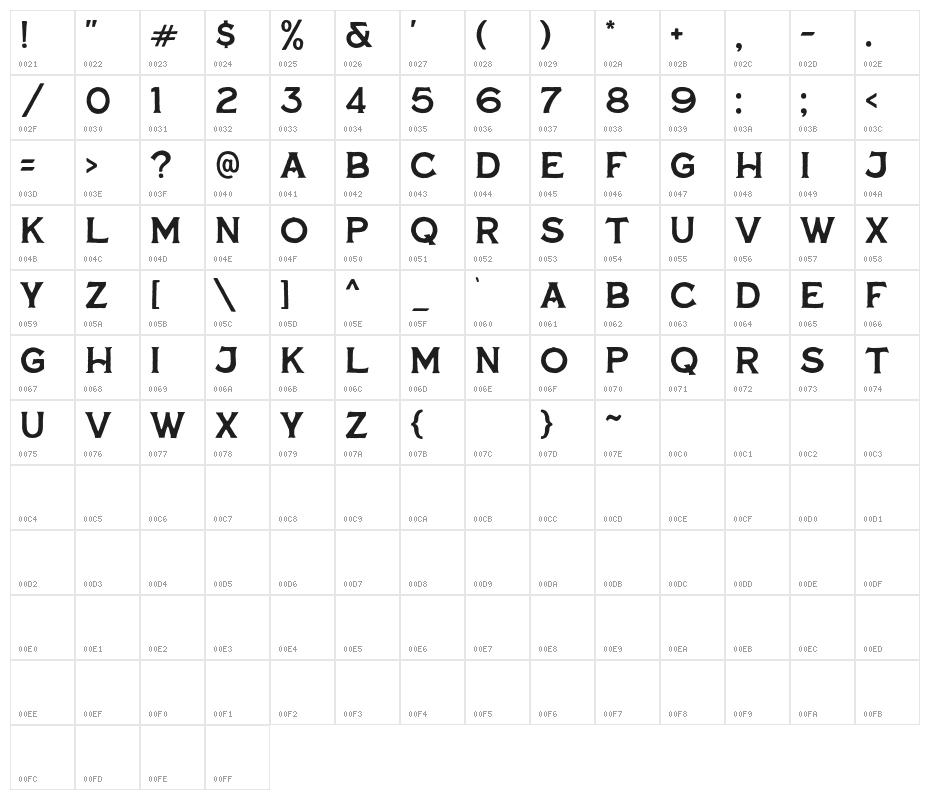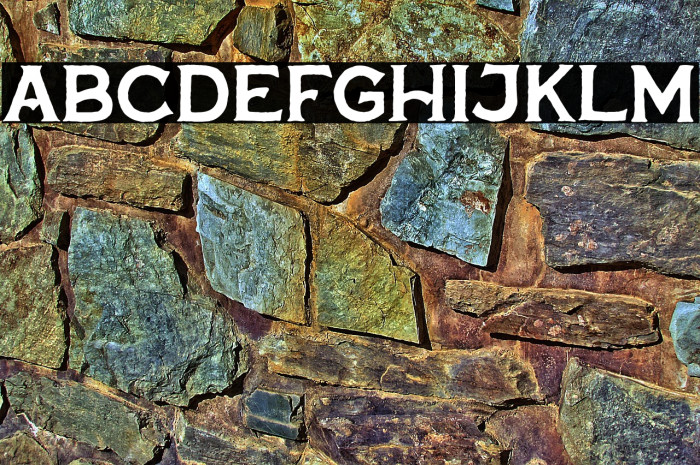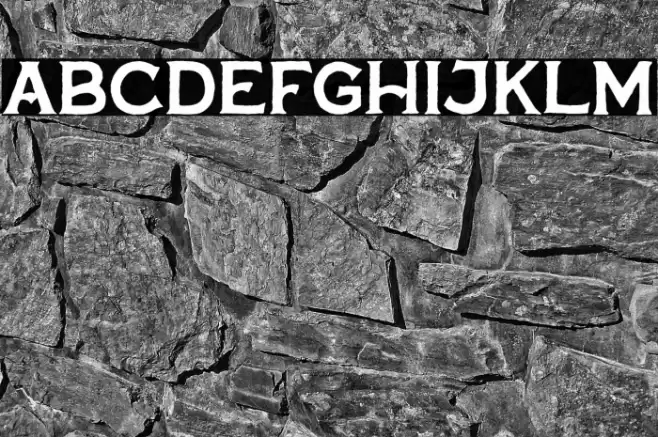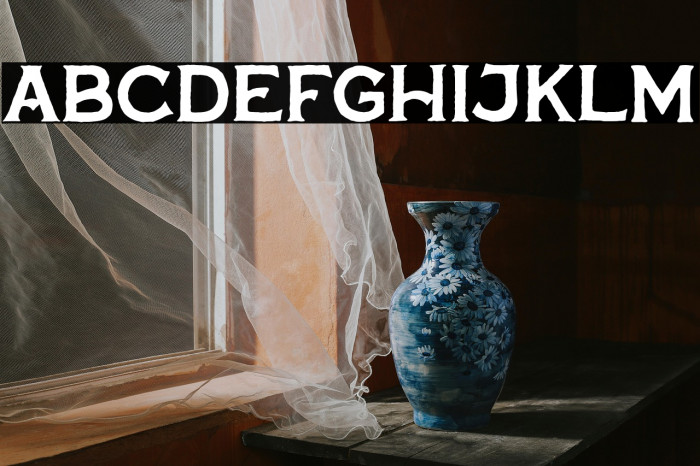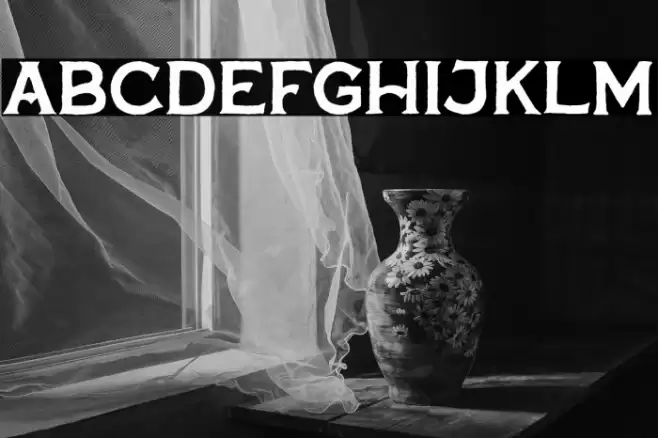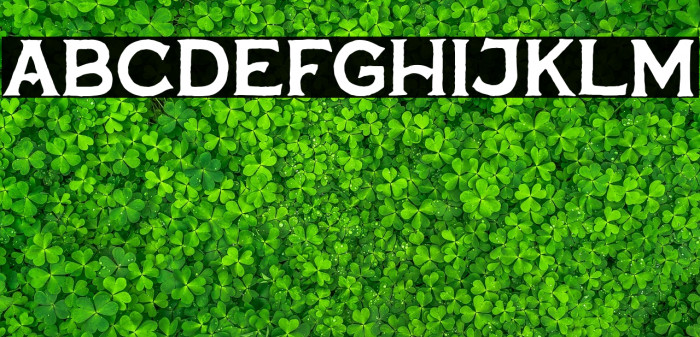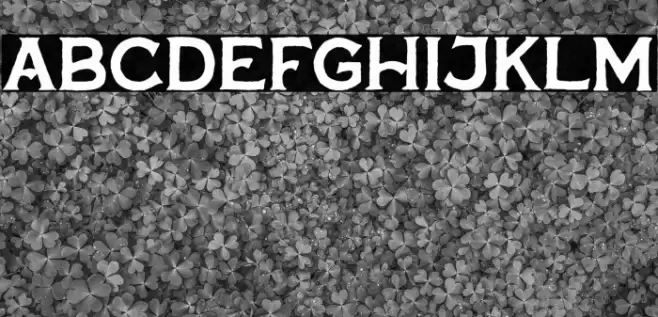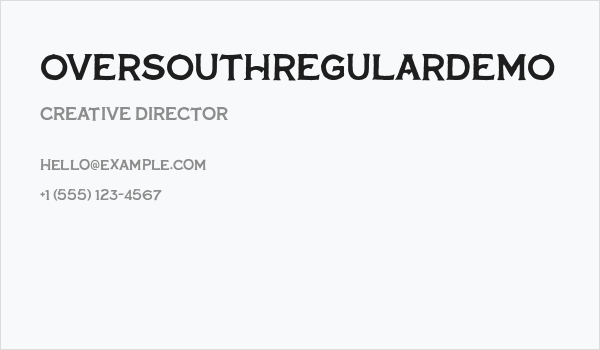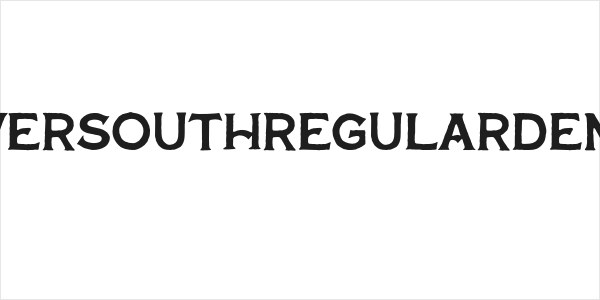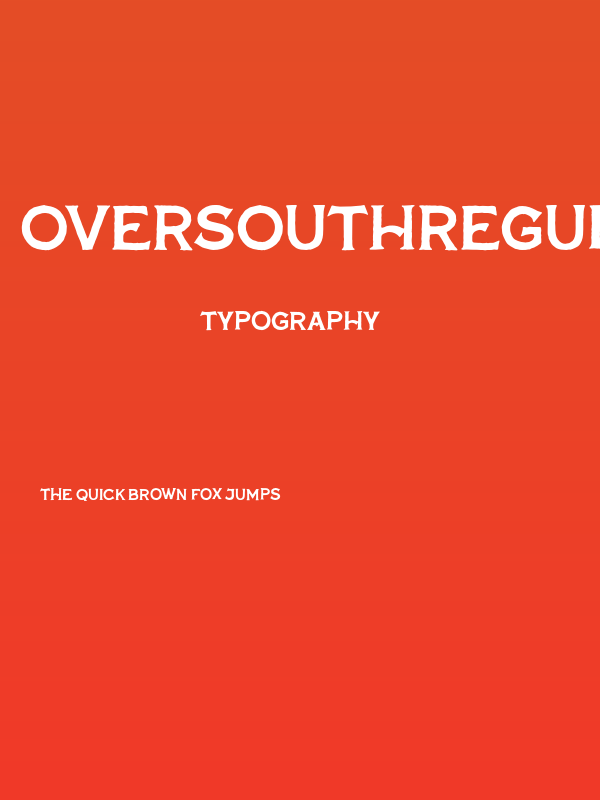
OversouthRegularDEMO Font
OversouthRegularDEMO Description
This font features a bold and dynamic style with a hand-drawn appearance, characterized by its irregular strokes and slightly rough edges. The uppercase letters are prominent and assertive, while the lowercase letters maintain a consistent flow, enhancing readability. The numerals are well-balanced, matching the overall aesthetic of the alphabet. Special characters are designed with the same boldness, ensuring they stand out effectively. The font's unique style makes it suitable for projects that require a touch of personality and creativity.